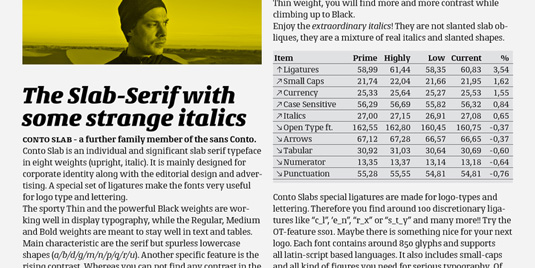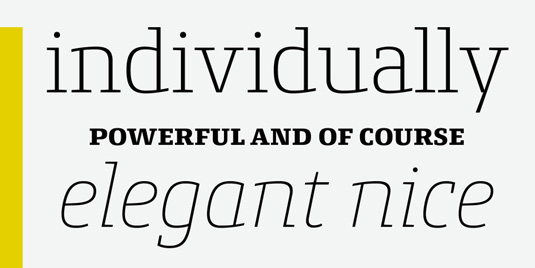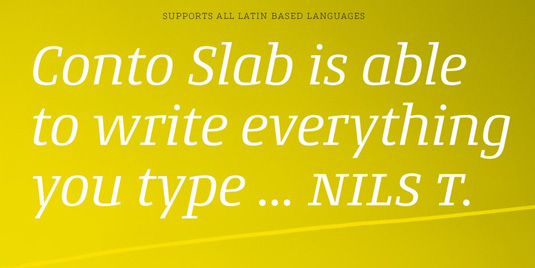
Font of the day: Conto Slab
Every day we showcase the best fonts on the web. Today it's Conto Slab by Nils Thomsen.
Conto Slab by Nils Thomsen
A member of the Conto font family, Conto Slab is bold slab serif typeface, which is available in eight weights. Created by designer Nils Thomsen, Conto Slab was developed mainly for corporate identities, as well as editorial design and advertising.